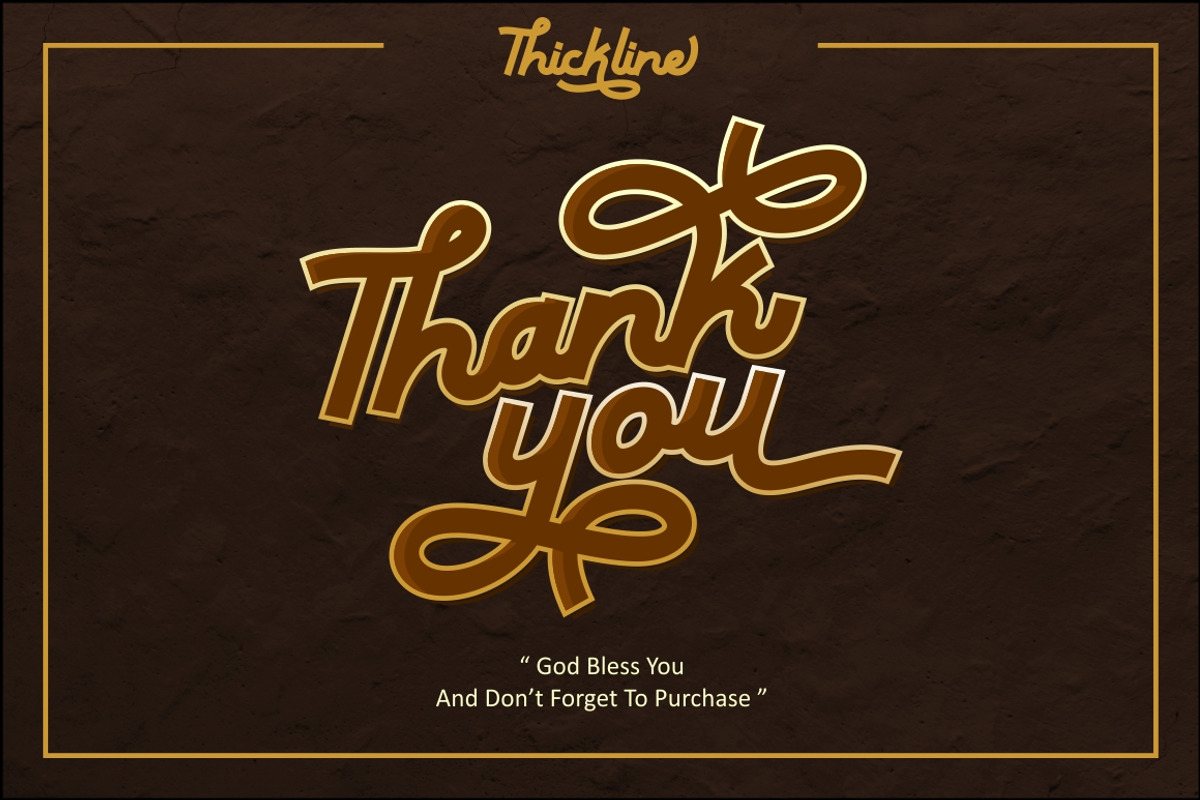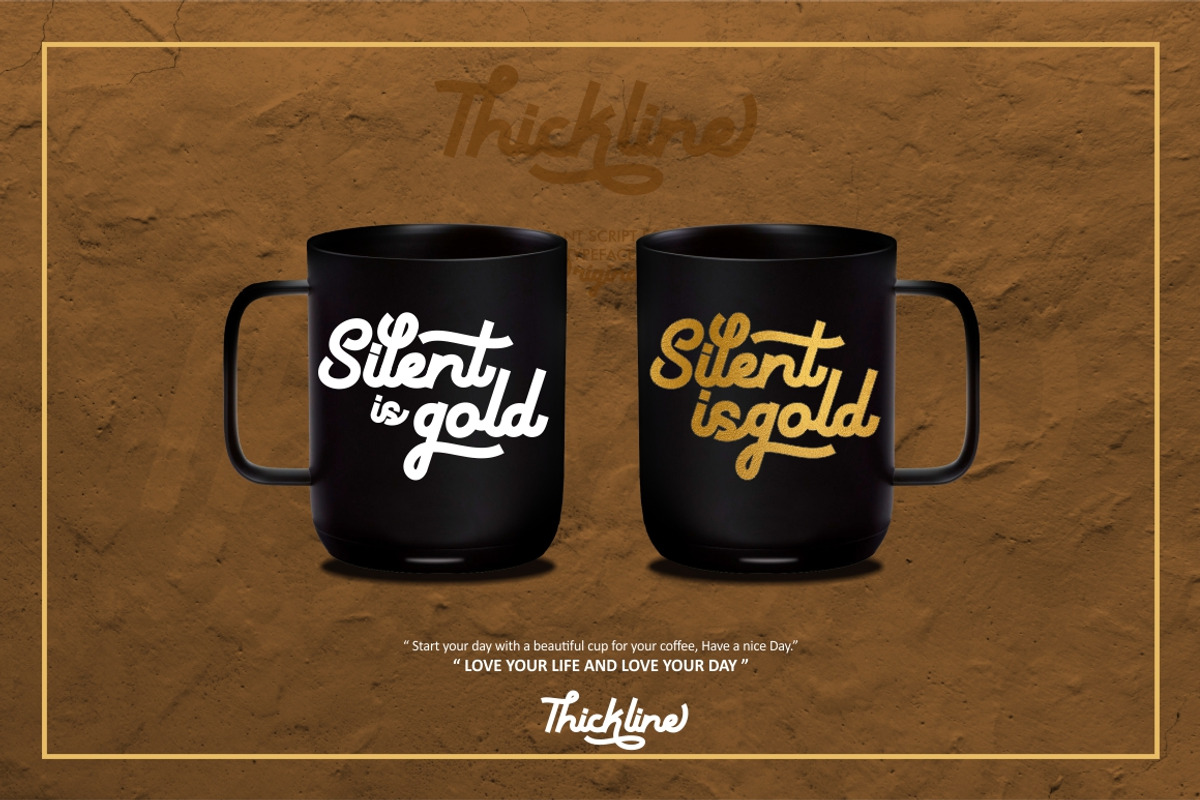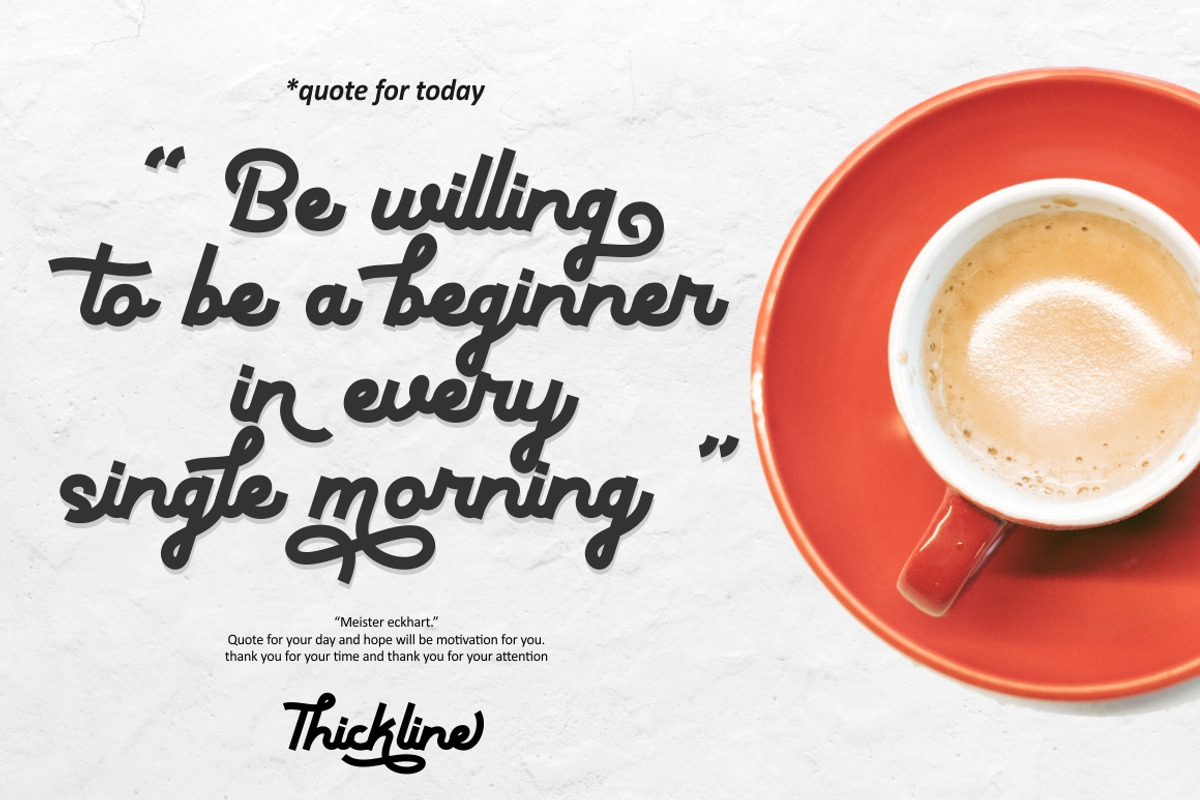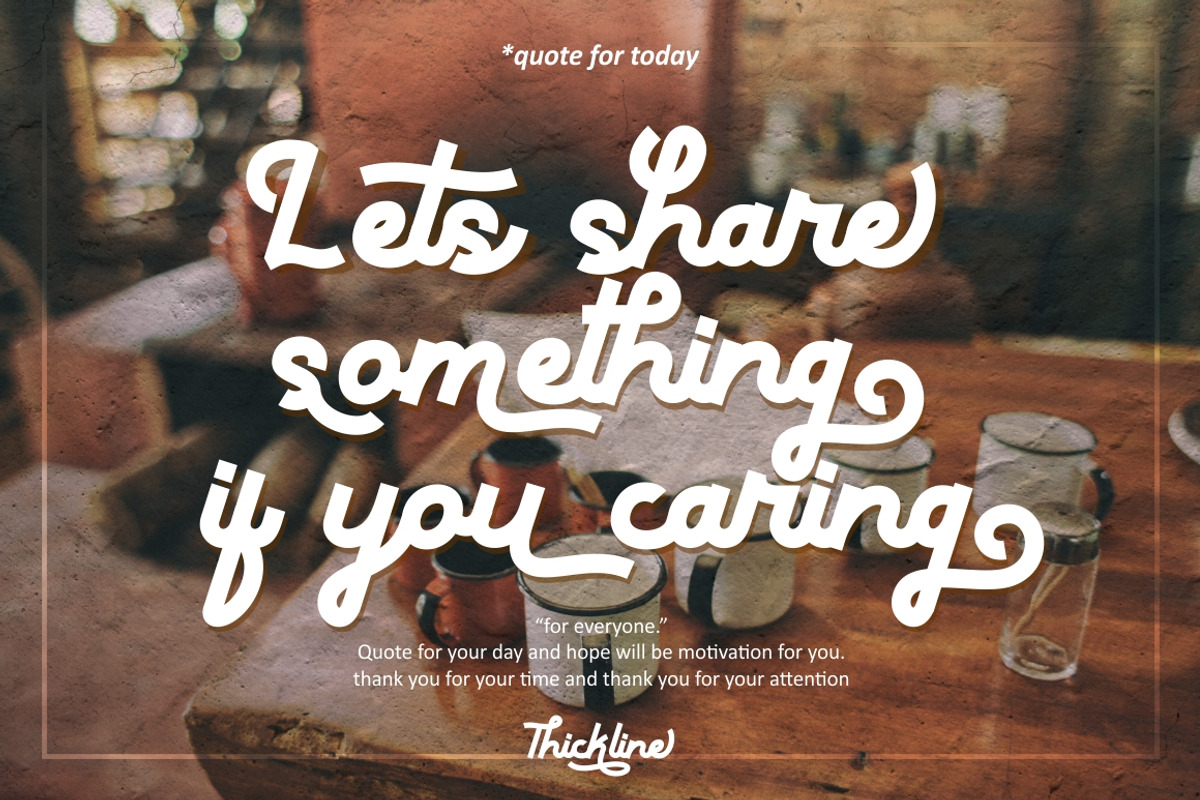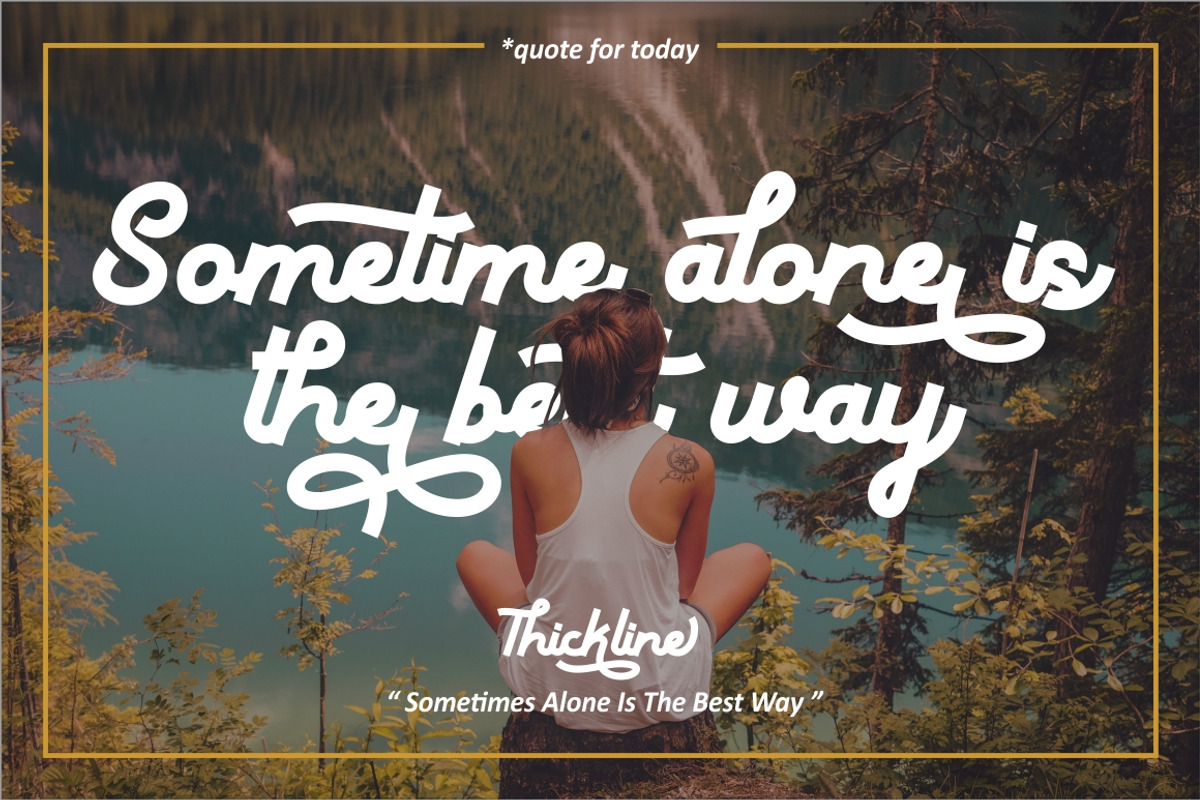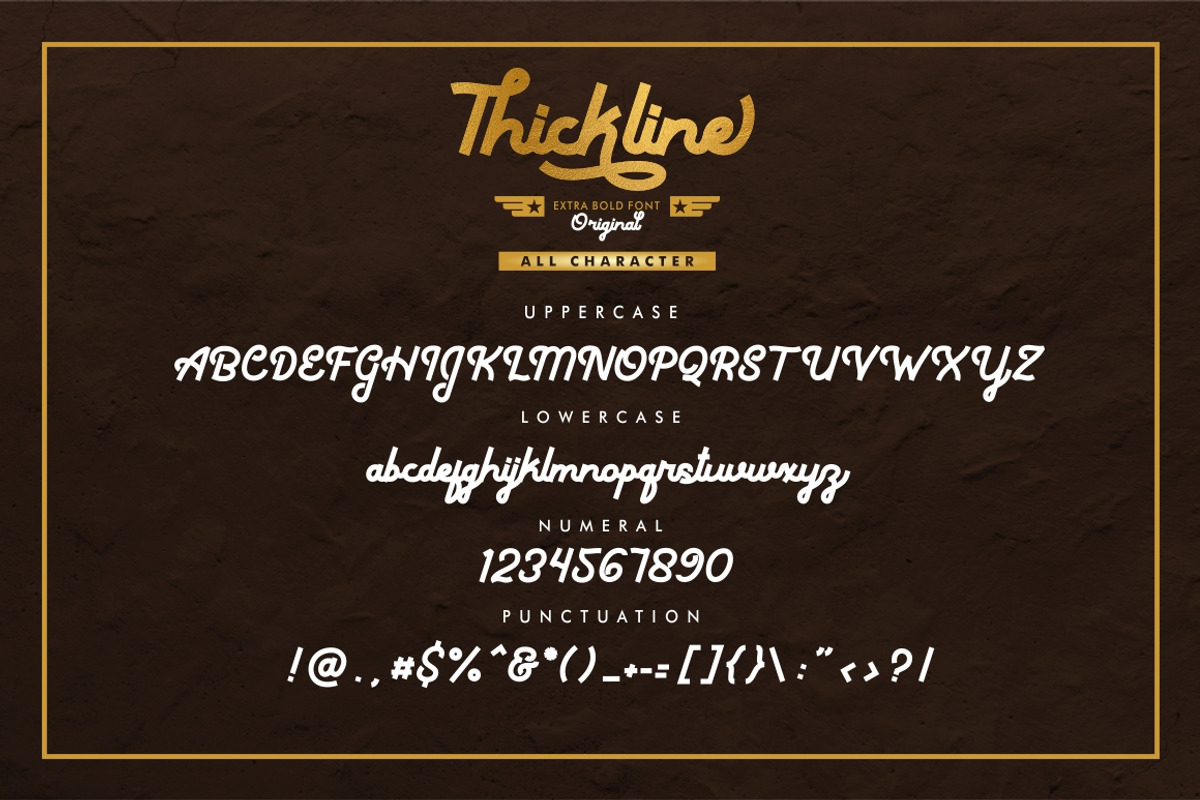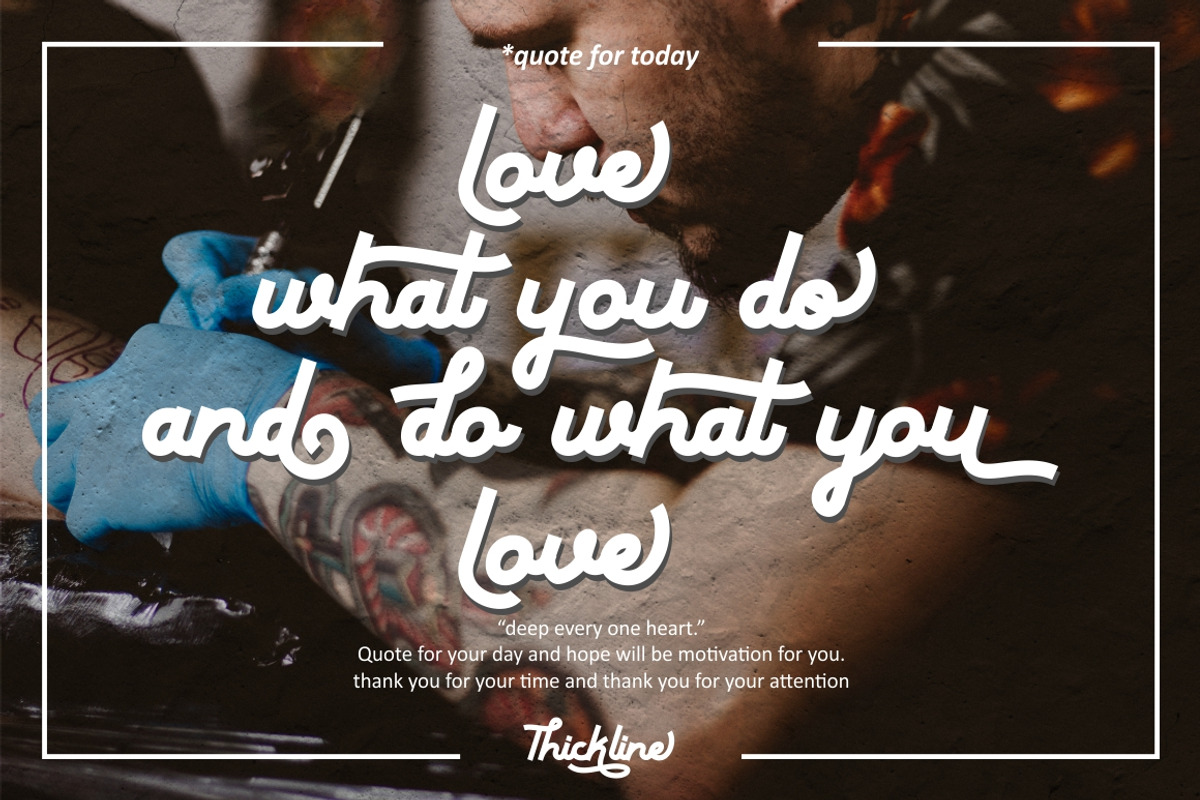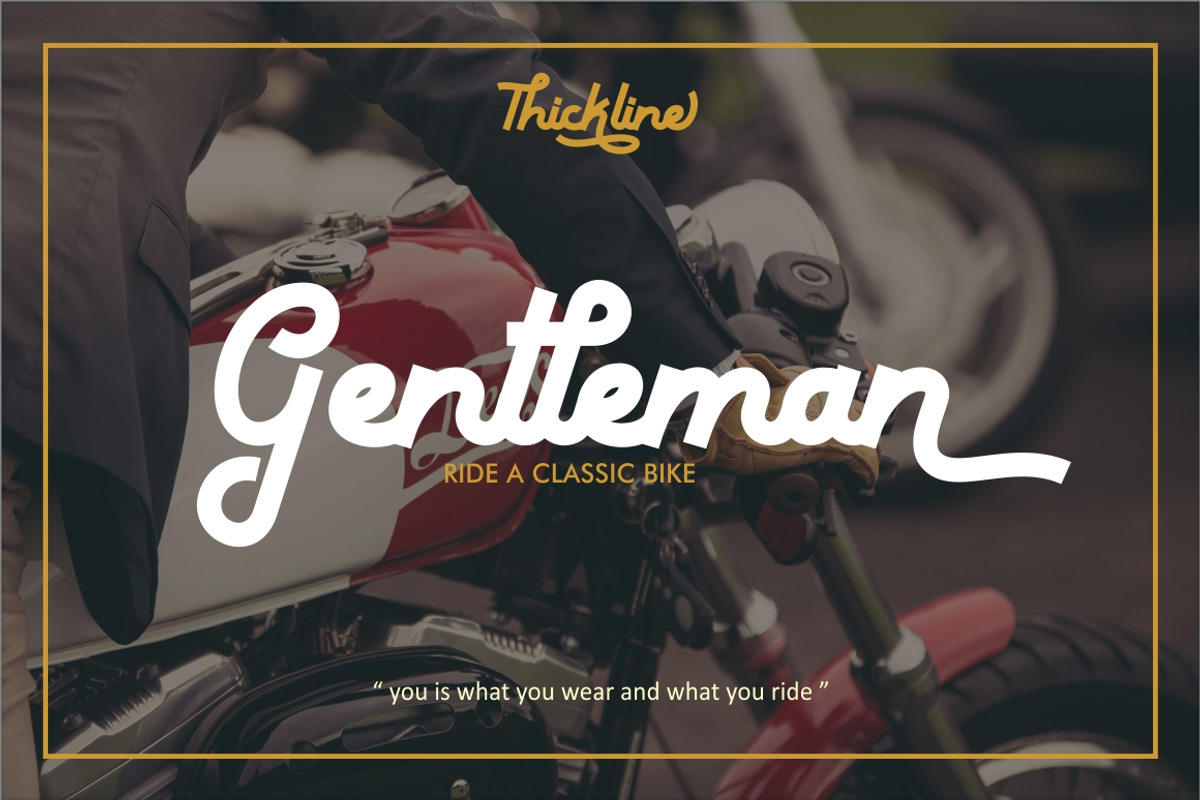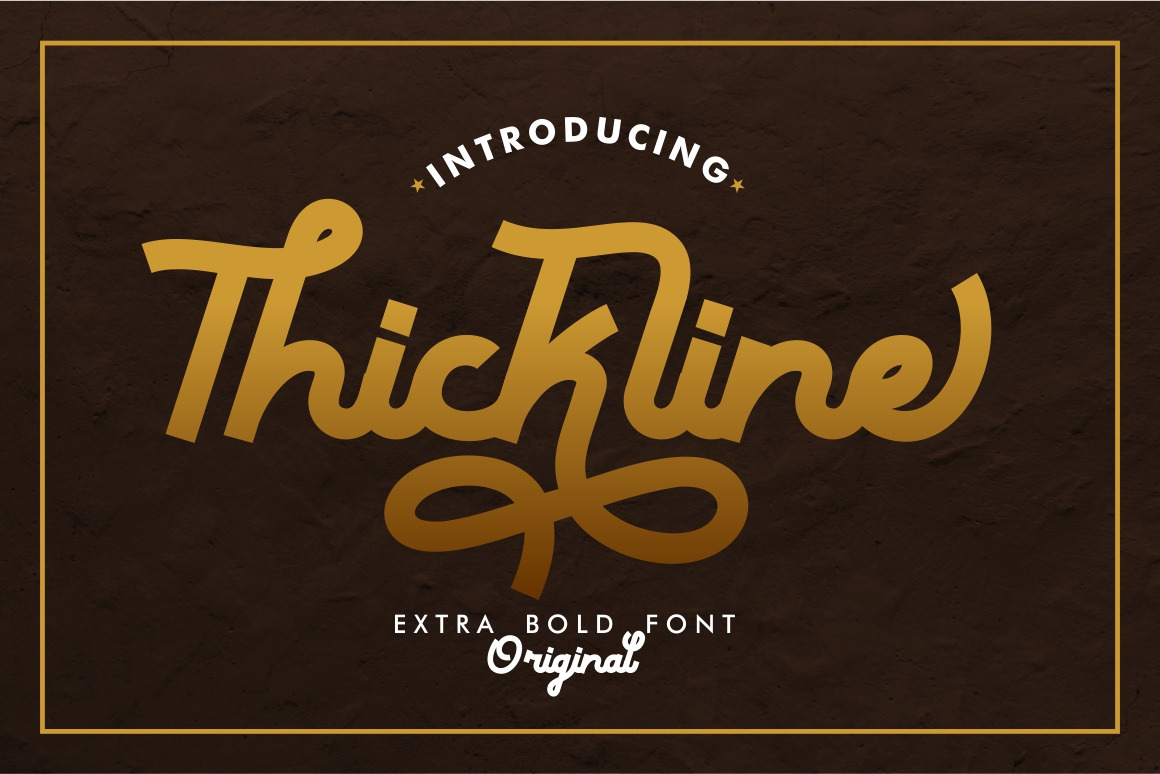
Thickline - Classic Bold Font
Thickline
Introducing, Thickline ! a classic bold monoline typeface. Thickline is bold, strong, and classy. You can use this font for making an awesome logo, branding, letterhead, invitations,quote, print, card clothing brand, vintage looks,and so much more!. Come with open type feature with a lot of alternates, its help you to make great lettering. This font is also support multi language. To access the alternate glyphs, you need a program that supports OpenType features such as Adobe Illustrator CS, Adobe Photoshop CC, Adobe Indesign and Corel Draw.
Comes with feature :
- Number, Punctuation And Symbols
- Multilanguage Support.